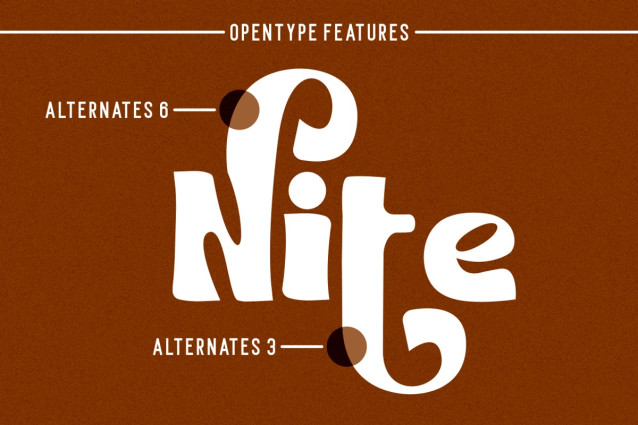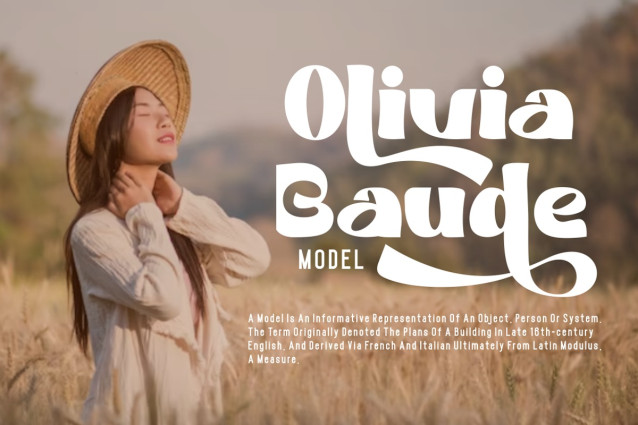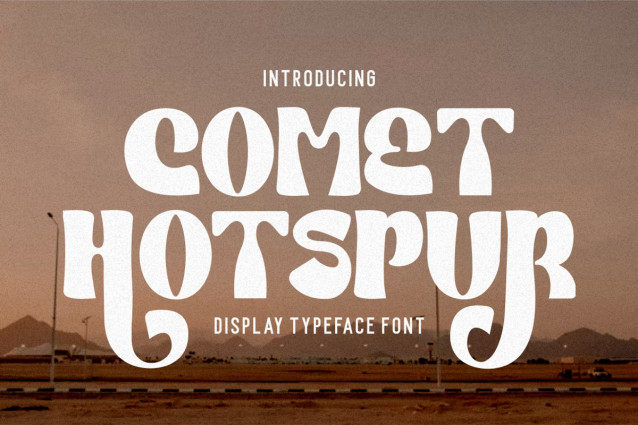
Comet Hotspur Font
Comet Hotspur – Display Typeface Font is a bold and distinctive font that seamlessly blends modern and retro aesthetics. With its unique character shapes, bold strokes, and alternative letterforms, this font offers a captivating typographic solution. The font exudes a retro bold and vintage vibe while maintaining a fresh and contemporary edge, making it a versatile choice for various design projects. Whether you’re creating logos, branding materials, titles, posters, film graphics, cards, quotes, or landing page titles, Comet Hotspur will infuse your designs with a bold and unforgettable visual impact.
The display style of Comet Hotspur boasts a striking and attention-grabbing appearance, enhanced by its bold strokes and unique character forms. The font’s alternative letterforms provide creative options for customization, allowing you to tailor the typography to match your design vision. This font masterfully combines the nostalgic charm of vintage typography with a modern twist, resulting in a one-of-a-kind typographic experience.
Comet Hotspur – Display Typeface Font will be the centerpiece of your design projects, capturing attention with its bold and unique style. Its ability to blend retro boldness with contemporary uniqueness gives your designs an edge that stands out. Whether you’re aiming for a vintage-inspired film poster, a memorable logo, or an impactful quote, Comet Hotspur will leave a lasting impression, elevating your designs with its bold and unforgettable typographic presence.